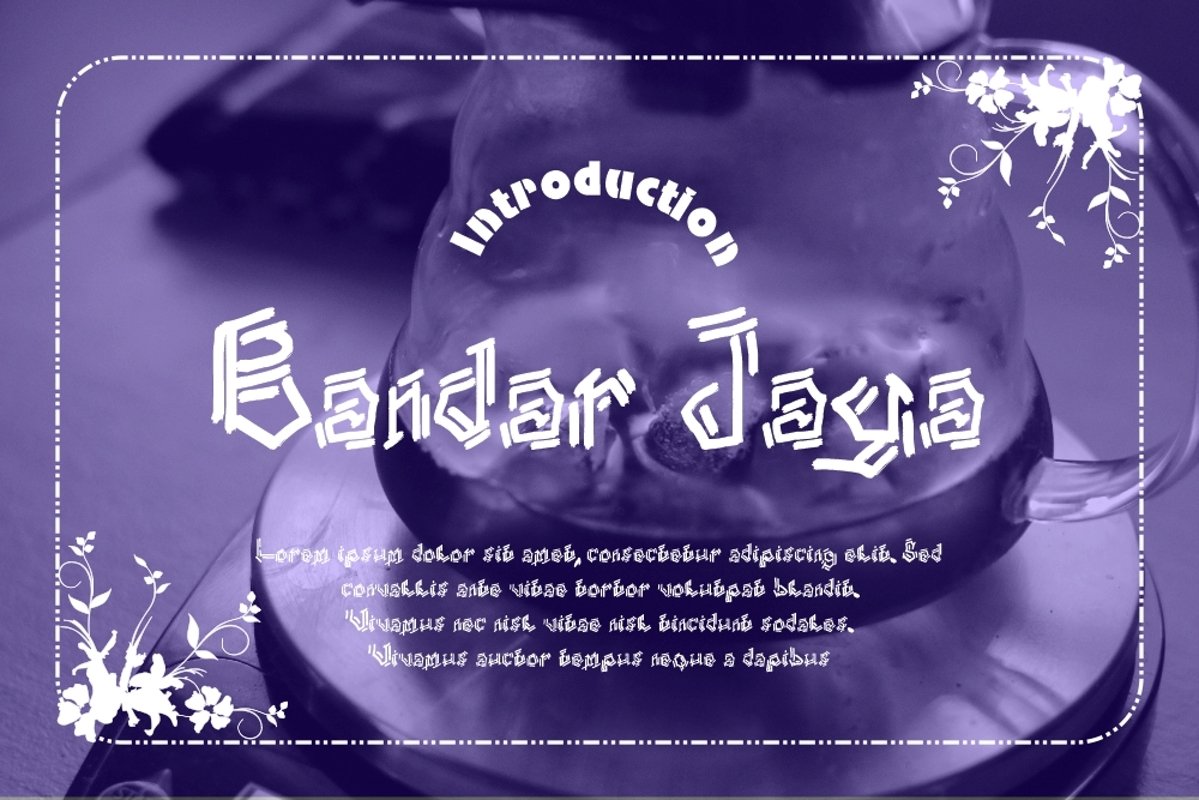
Bandar Jaya
Bandar Jaya Typeface is a Display type. It suitable for any vintage type needs and more Happy creating.Very suitable for you who do exploration